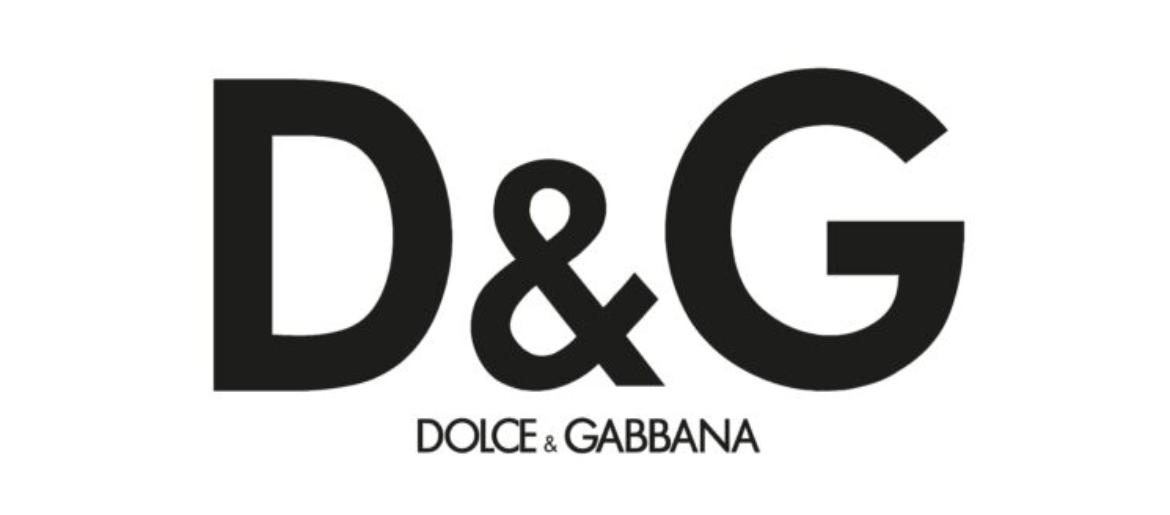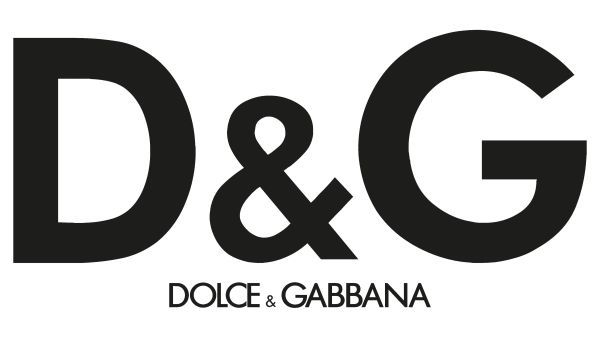
Dolce Gabbana Font
What Font is Dolce Gabbana?
Dolce & Gabbana Font embodies modern elegance and precision, much like the fashion house it represents. The typography used in the logo is Futura PT Demi by ParaType, a commercial font celebrated for its clean geometry and bold balance. Its refined structure and contemporary simplicity make it a perfect fit for luxury branding. For designers who want to achieve a similar aesthetic, we’ve also found a free alternative font that closely captures the sleek and iconic look of the Dolce & Gabbana font.
About Dolce & Gabbana
Dolce & Gabbana is an Italian luxury fashion brand founded in 1985 by Domenico Dolce and Stefano Gabbana. Known for its passionate Italian flair, bold prints, and glamorous designs, the brand has become synonymous with opulence and sophistication. From haute couture to fragrances, Dolce & Gabbana continues to celebrate Italian culture and timeless elegance, maintaining its place among the world’s leading fashion houses.